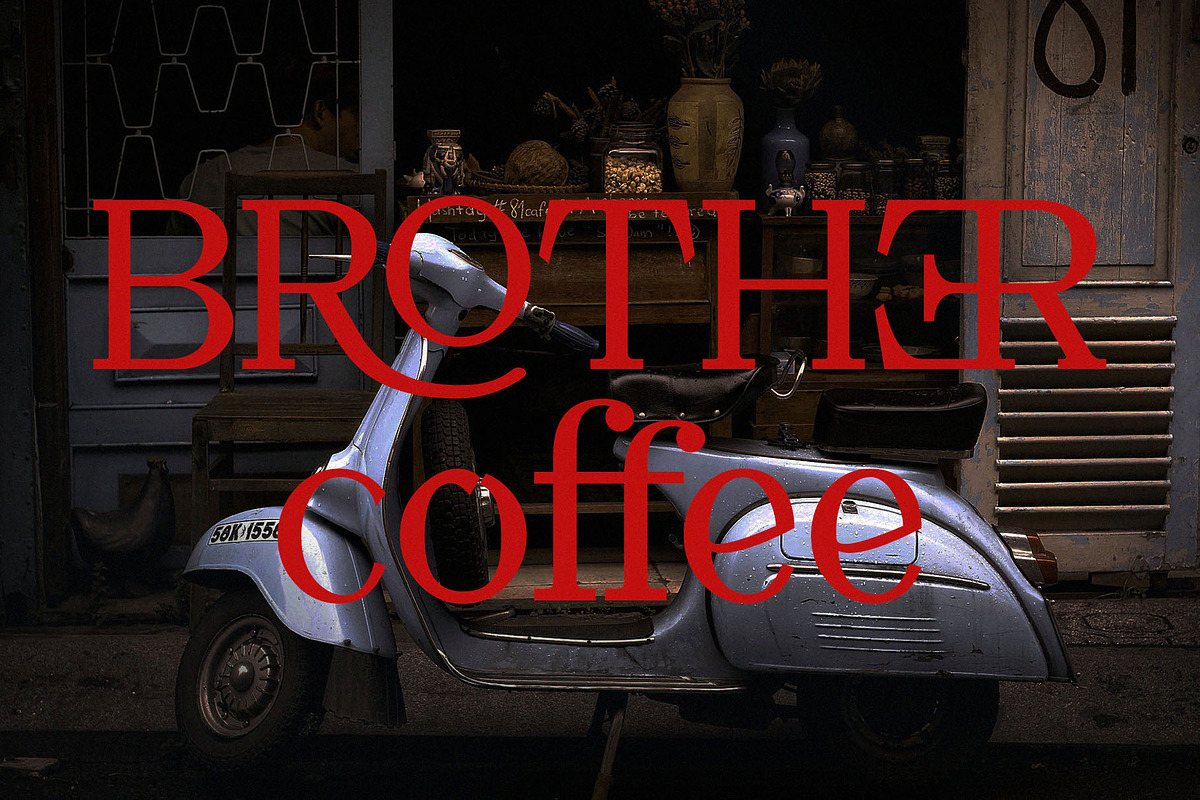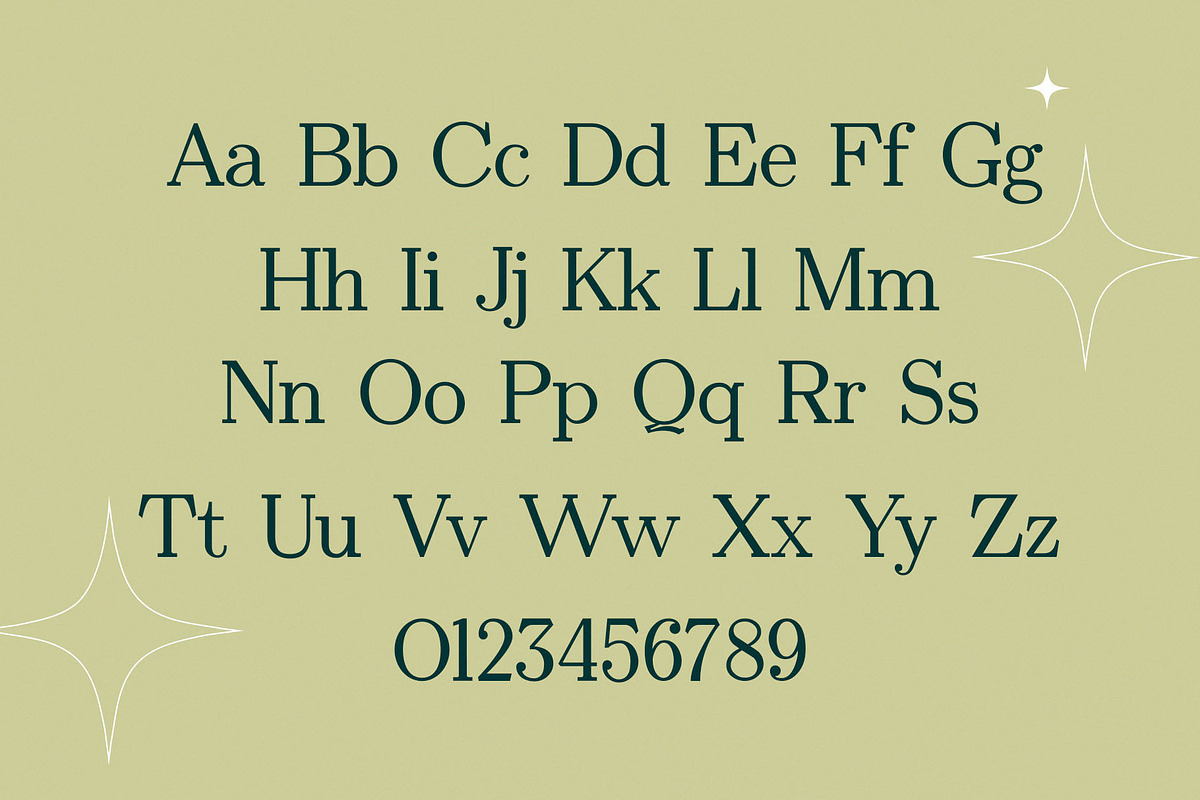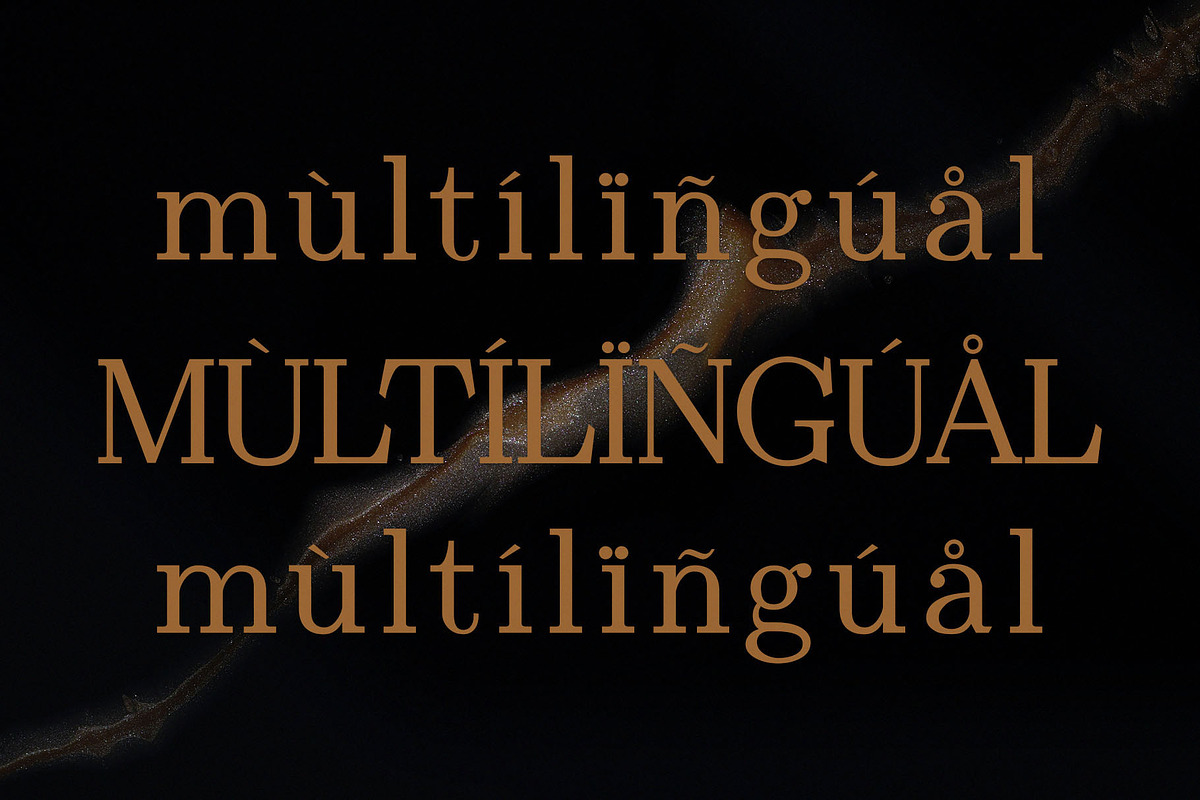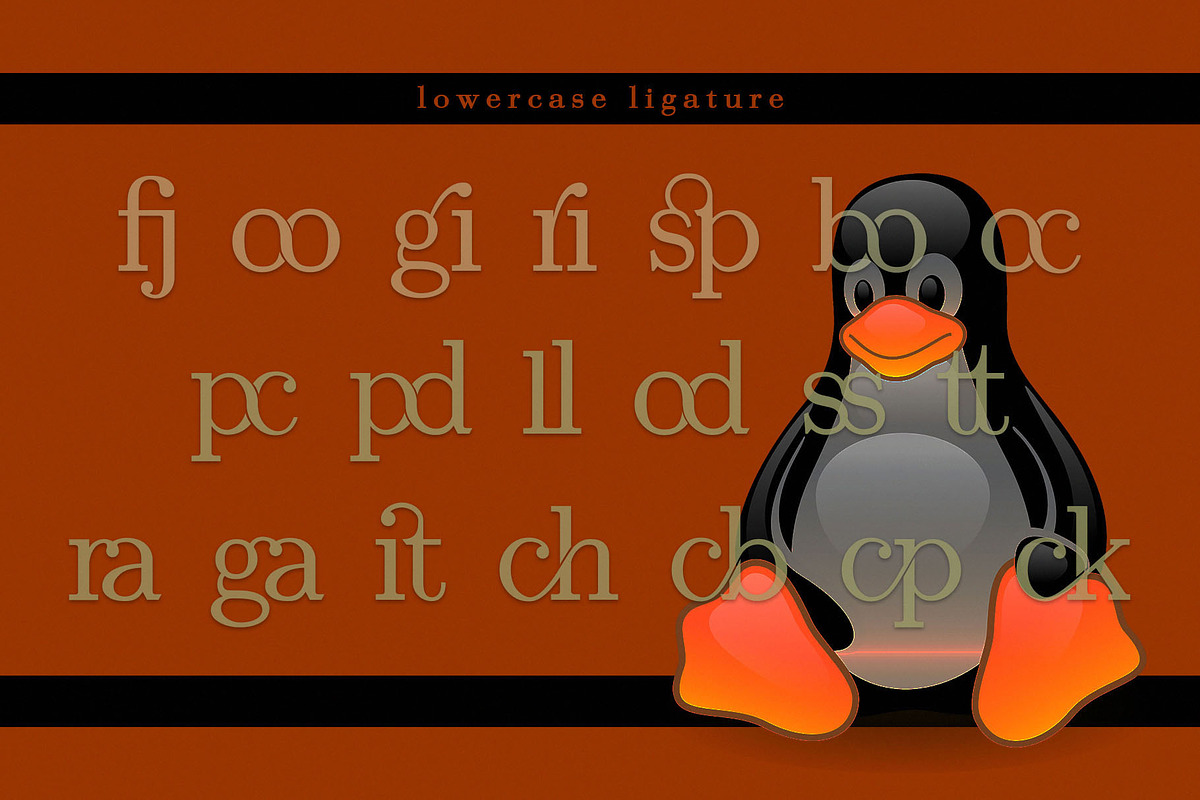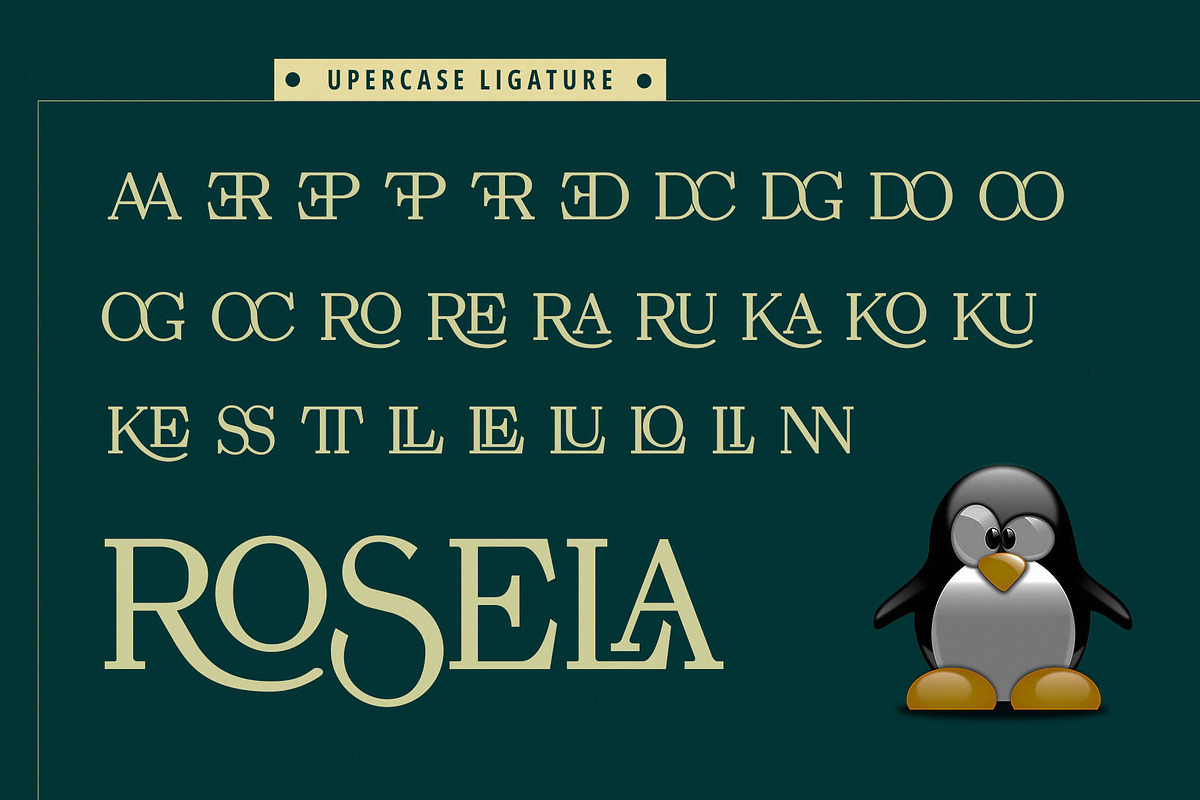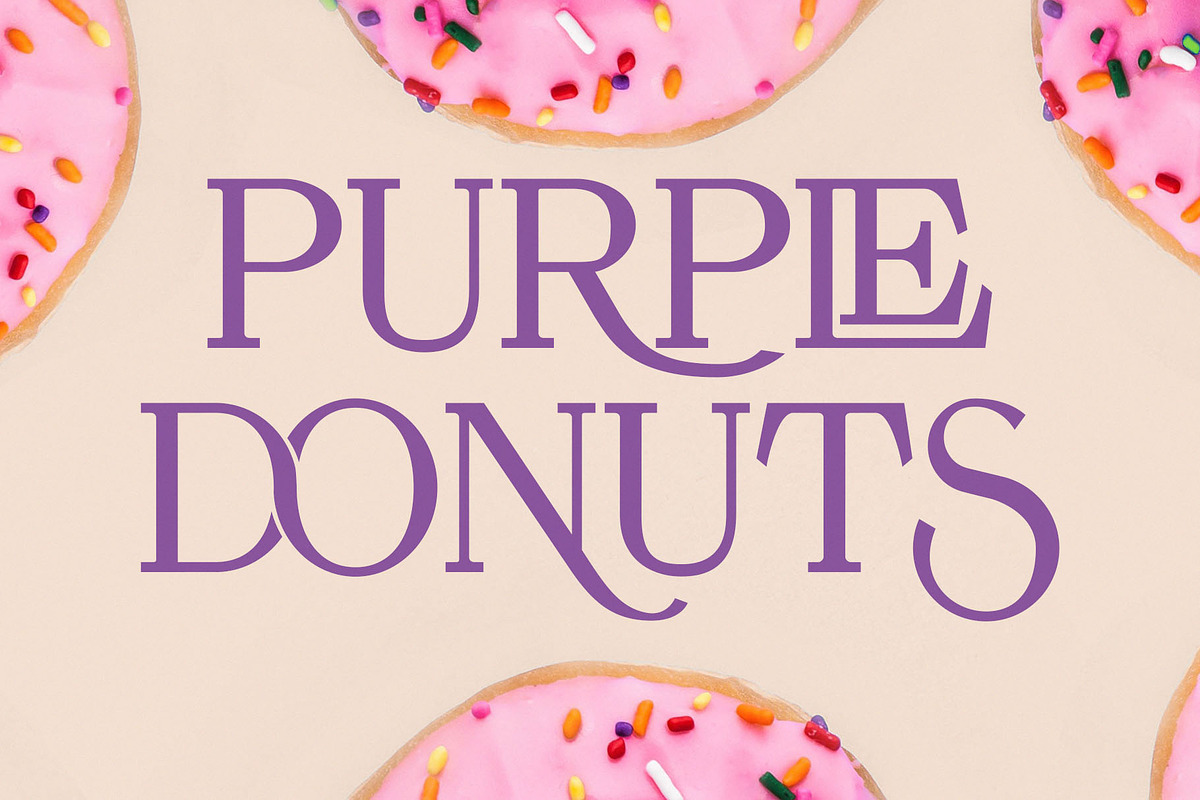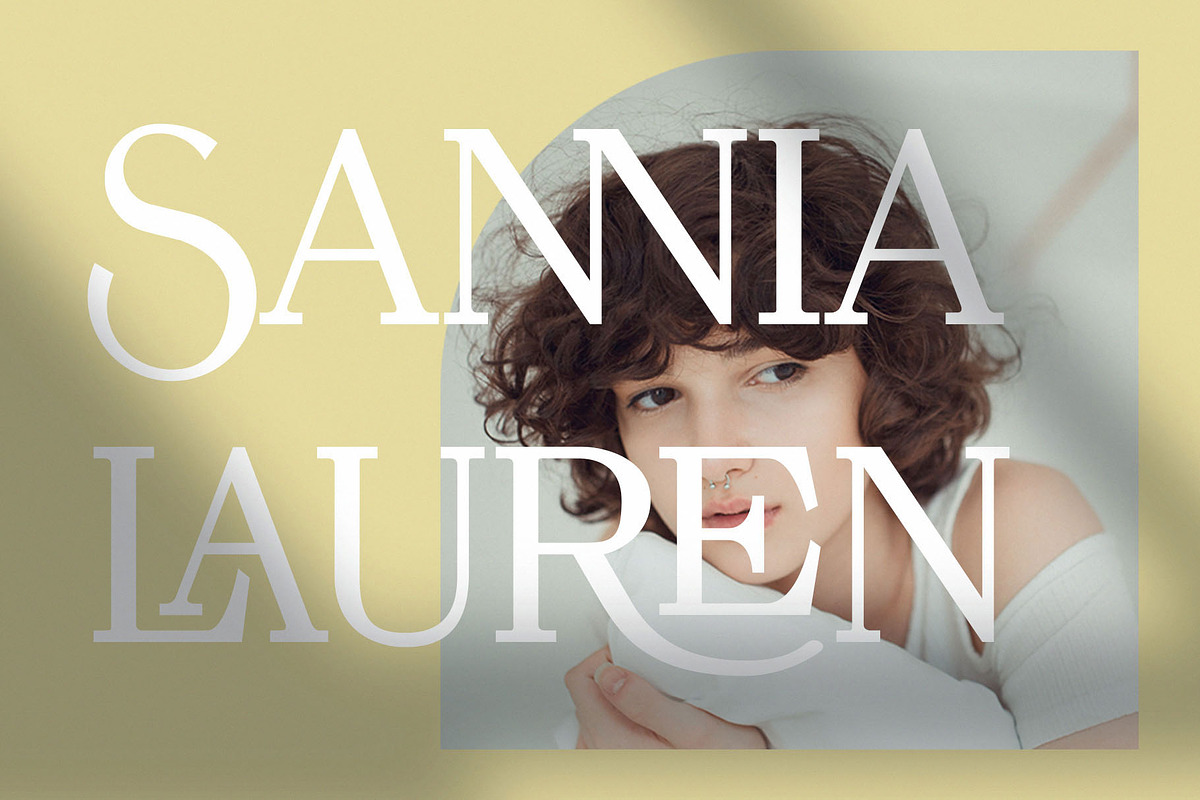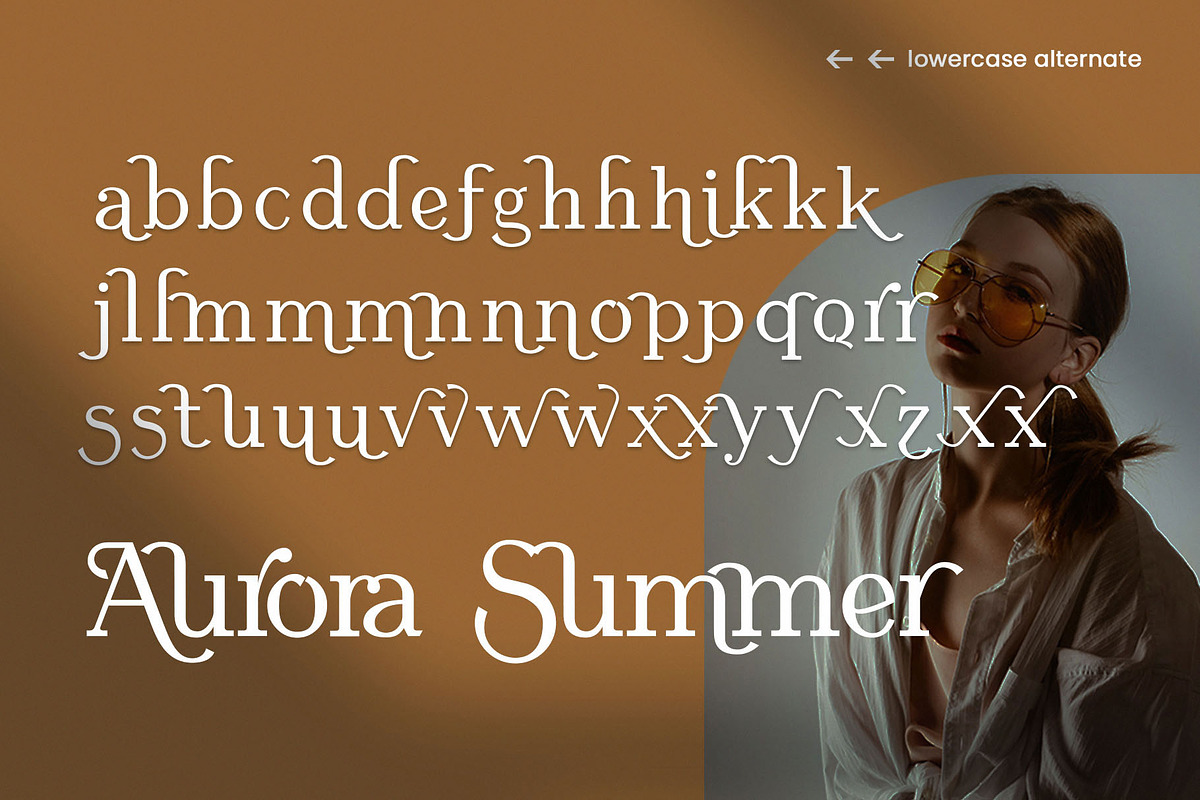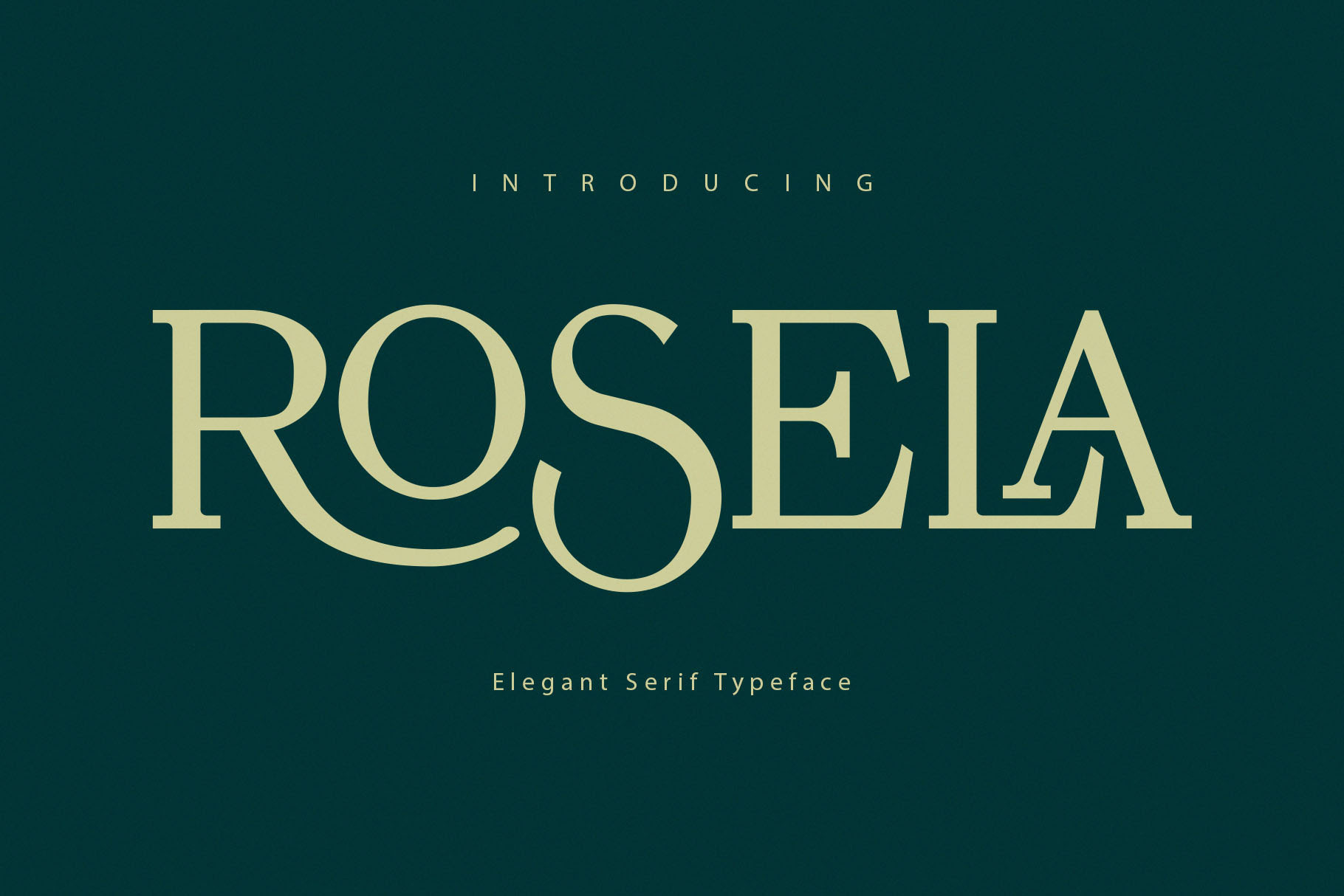
Rosela Elegant Serif Typeface
Introducing 'Rosela' Font:
A beautiful collection of letters is encapsulated in the Rosela font. Its clean and neat lettering is ideal for modern writing needs, striking a perfect balance between a classic feel and an elegant aesthetic. Elevate your written projects with the timeless and pleasing design of Rosela font.
Ideal for:
- Classic Designs
- Advertising Campaigns
- Elegant Creations
- Social Media Designs
- Poster
- Ready for Creative Expression
- Immaculately Crafted Letters